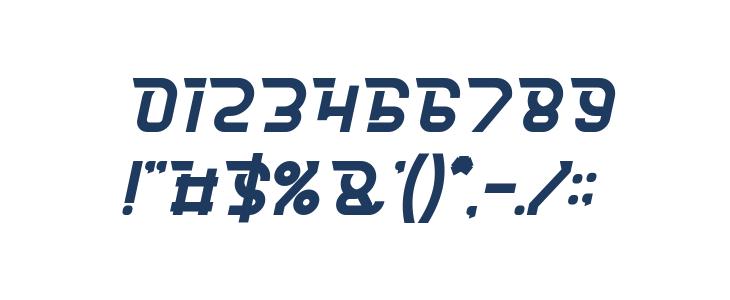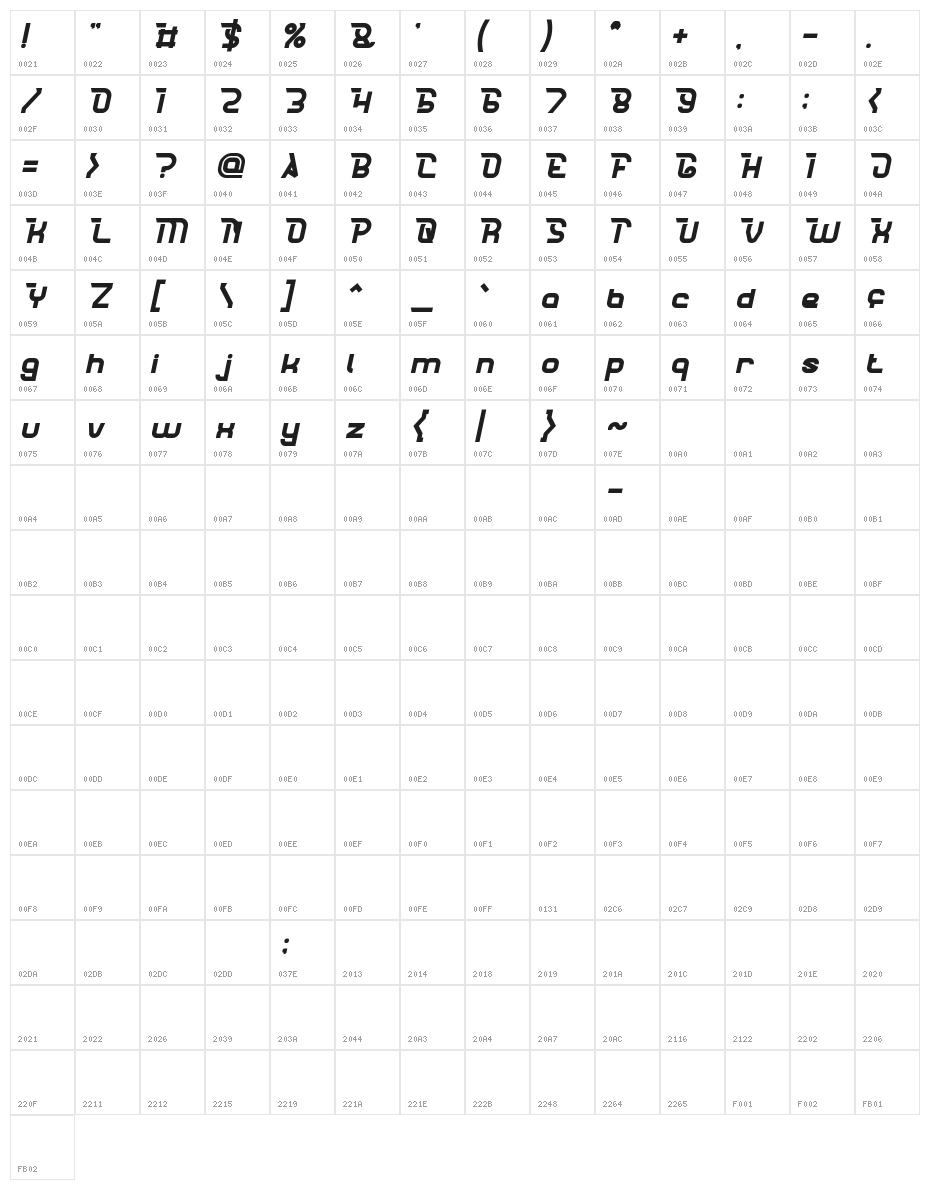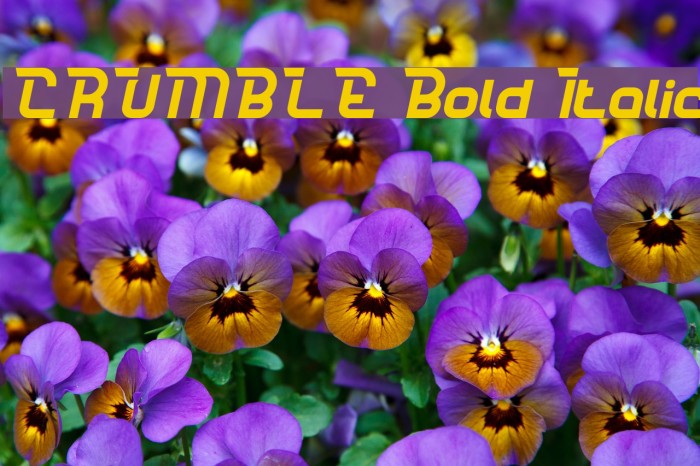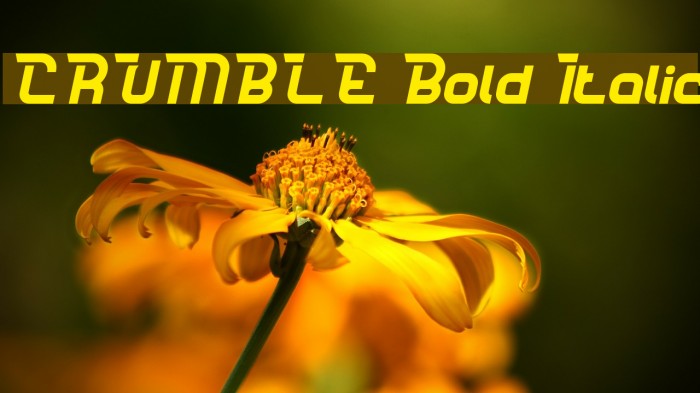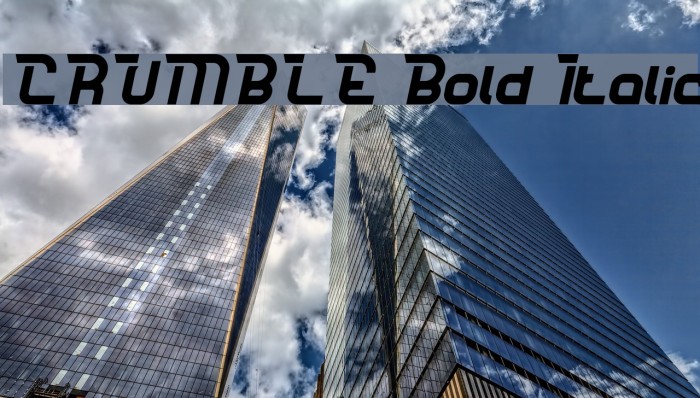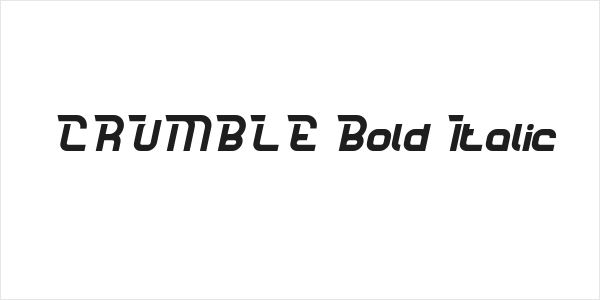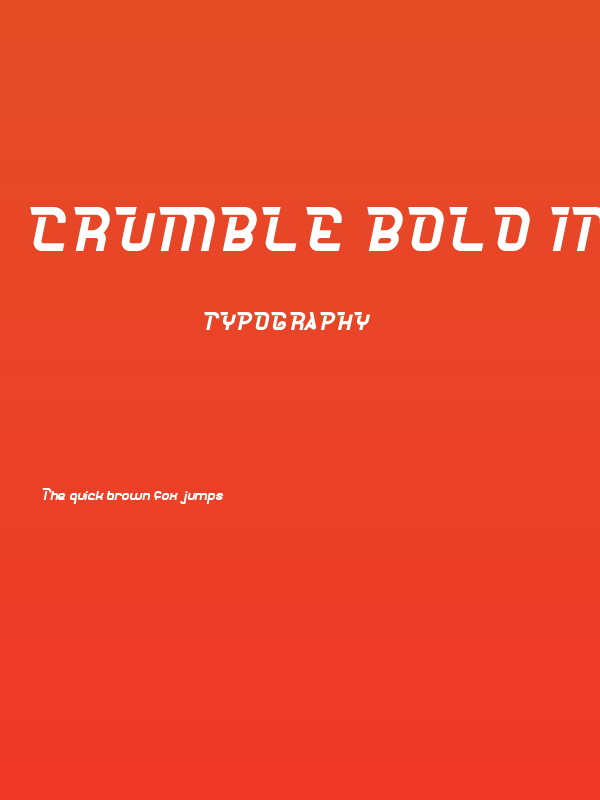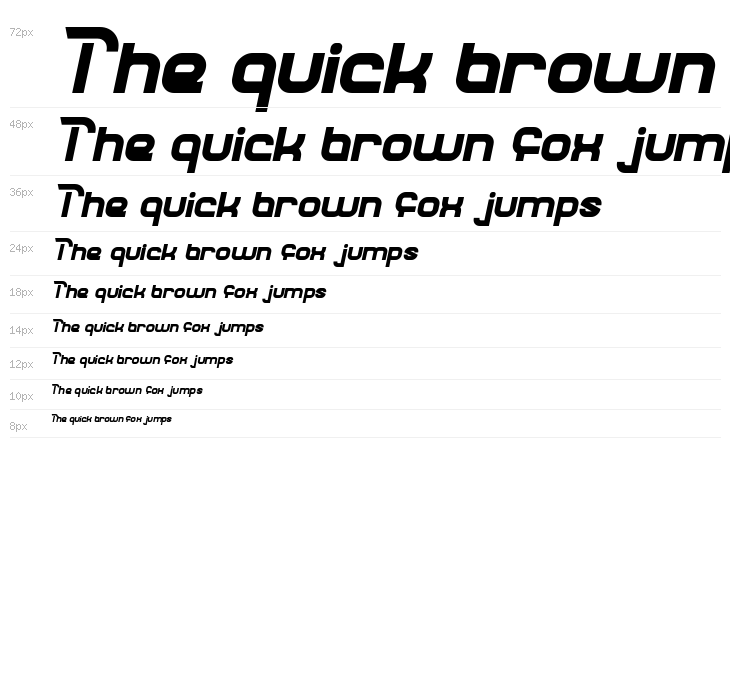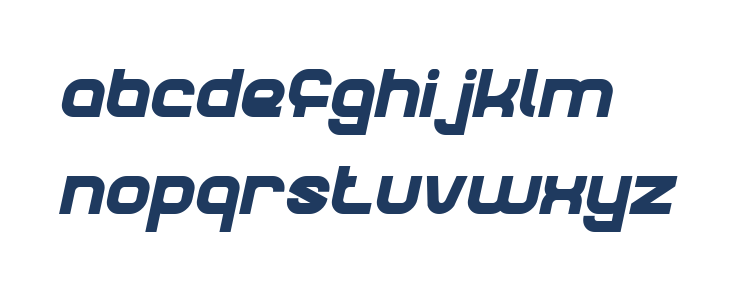
CRUMBLE Bold Italic Font
CRUMBLE Bold Italic Description
This font features a bold and italicized style with a modern and dynamic appearance. The characters are slightly slanted, giving a sense of motion and energy. The strokes are thick and consistent, providing a strong visual impact. The design includes unique cuts and angles, particularly noticeable in letters like 'G', 'S', and 'Z', which add a distinctive flair. The numbers are equally bold, maintaining the same stylistic elements as the letters. Special characters are well-integrated, matching the overall aesthetic. This font is suitable for projects that require a bold statement and a contemporary look.